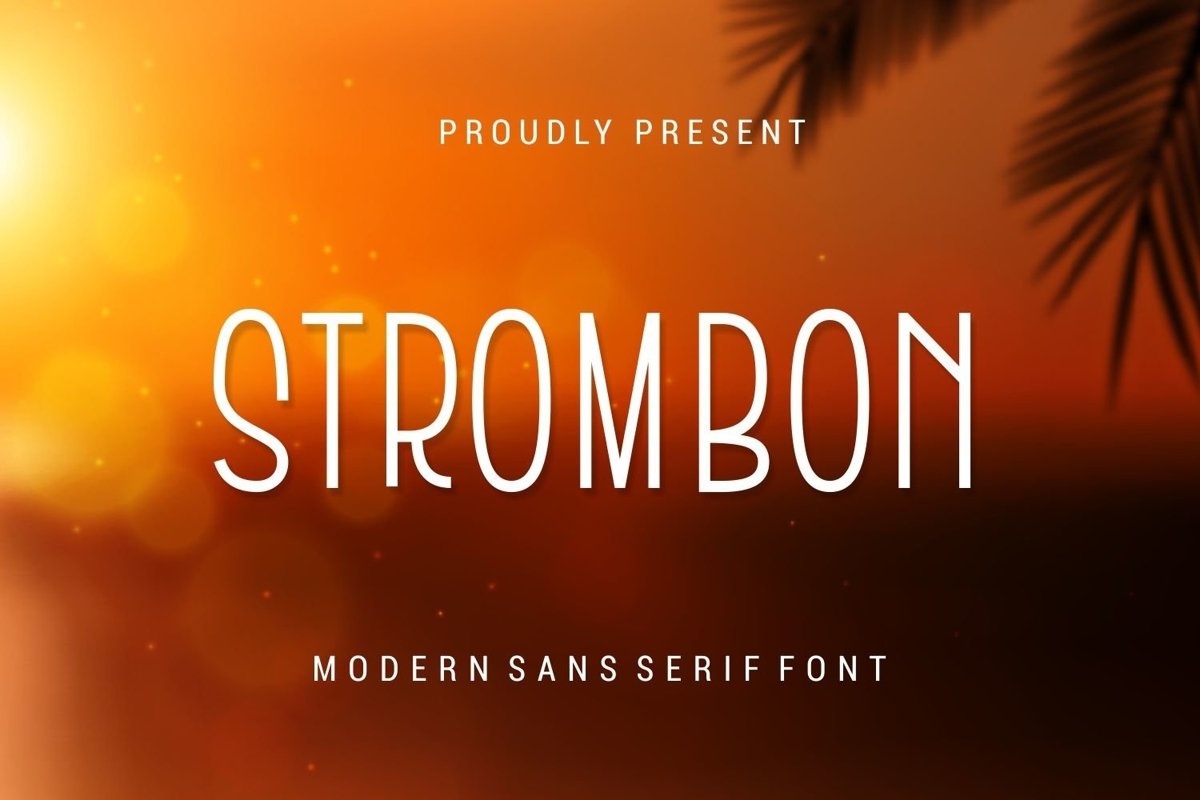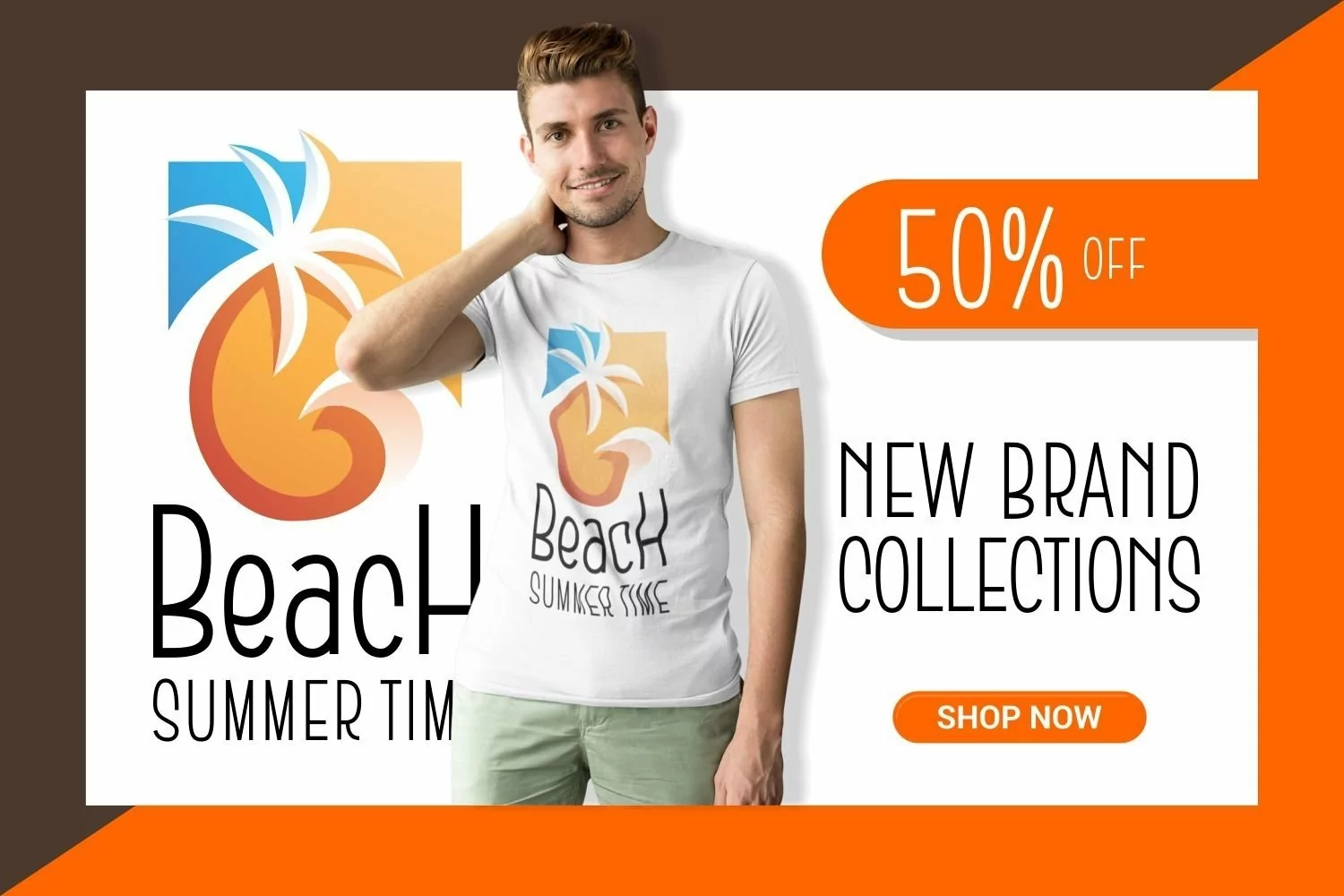
Strombon is a san serif display come with modern themes. This font looks a simple and clean shape. It matches applies in some designs such as the logotype, branding, packaging, quotes, poster, shirt, book, invitation and more custom design. The features uppercase, lowercase, numeral, punctuation & symbol, multilingual support, PUA encoded (fully accessible without additional design software).